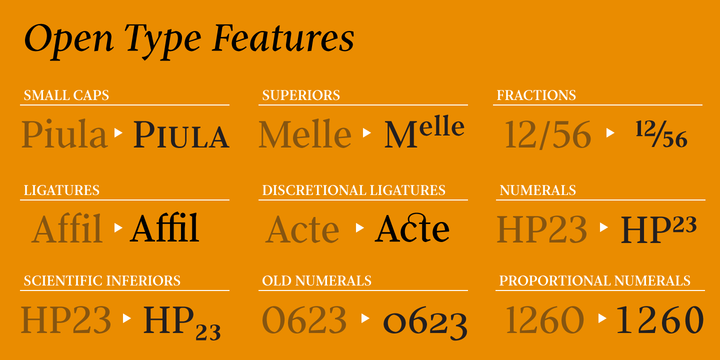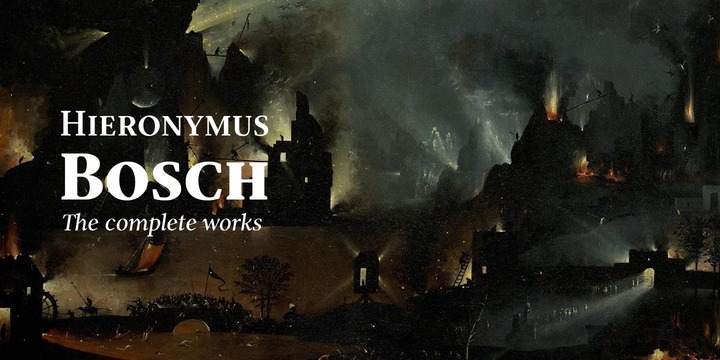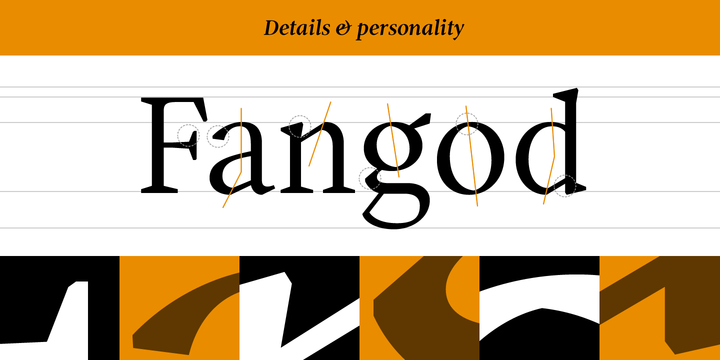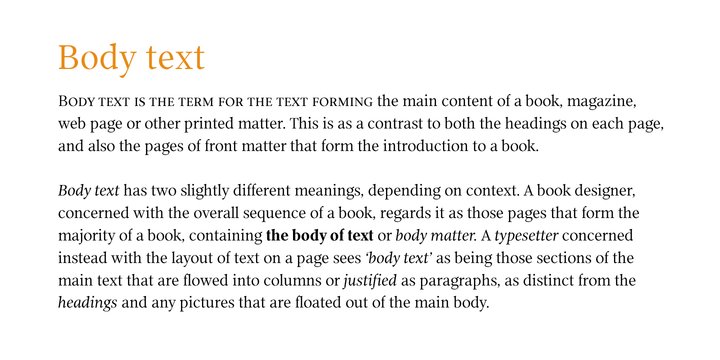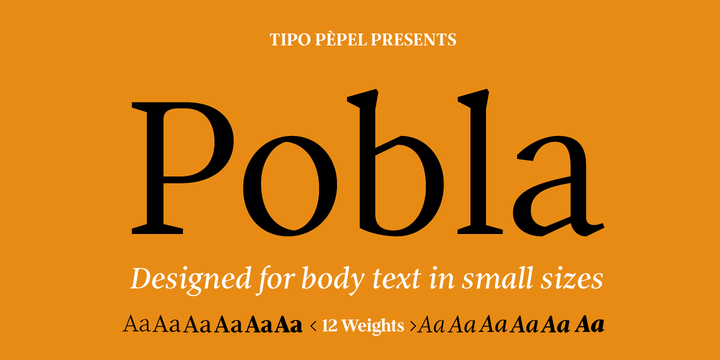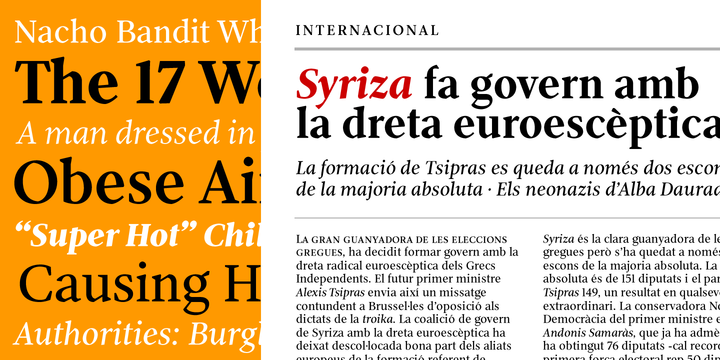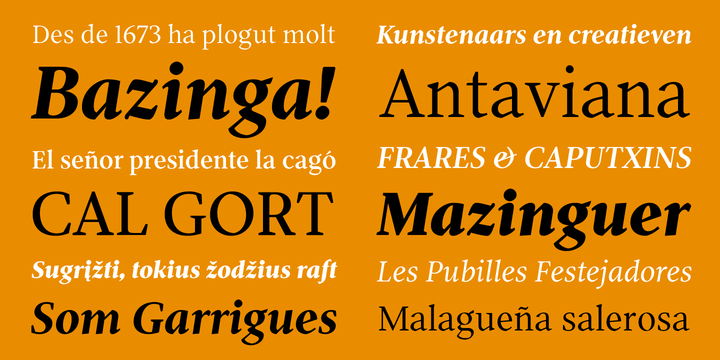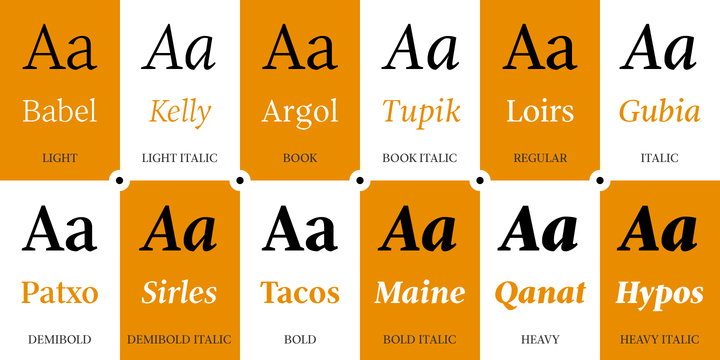
Pobla Font Family
Pobla Font Family – 12 Fonts
Optimum readability in small bodies with scarce interlining, under poor printing conditions such as in newspapers, where velocity and bad quality’s irregular surface papers, truly distort strokes was the challenge taken.
Pobla was designed with this in mind, hence Patau present a hybrid between the conventional strokes of a serif’s classical roman type and markedly “fractured” forms inside, providing a unique personality to this typographic family, where calligraphic’s humanistic axis is visibly broken with the straight axis of the fabricated letters.